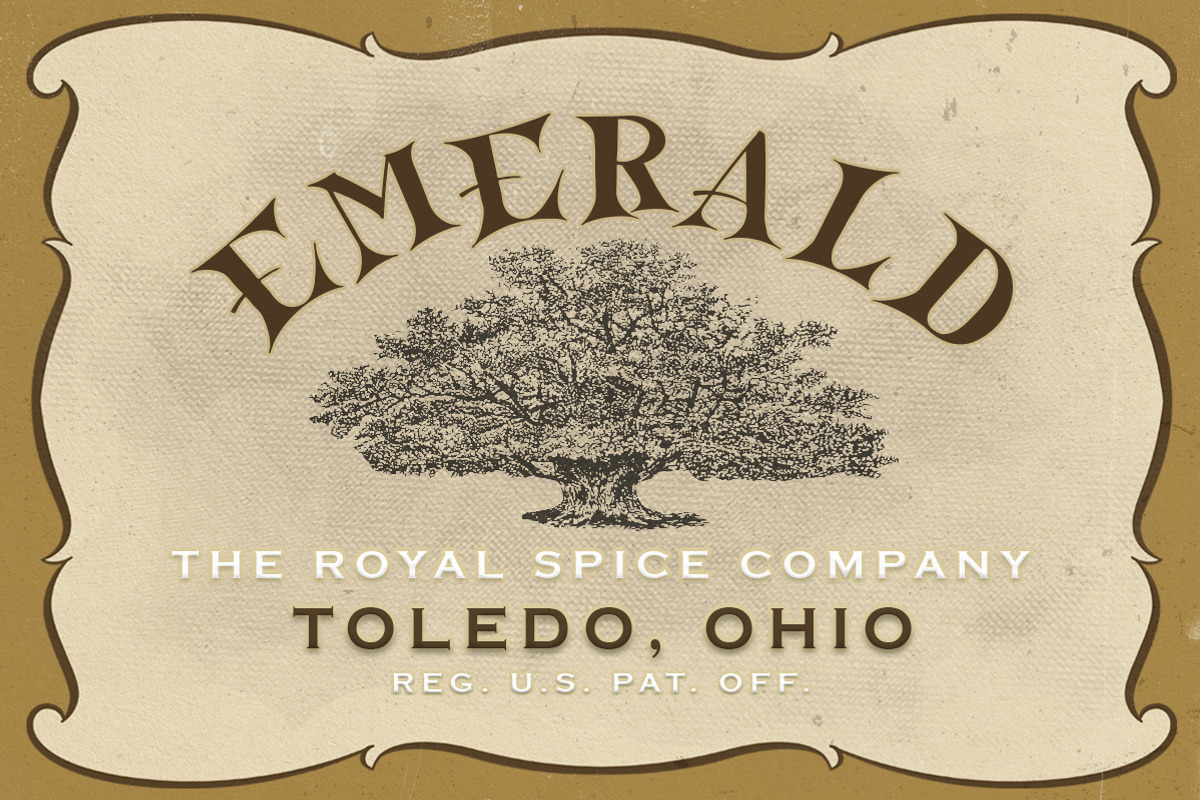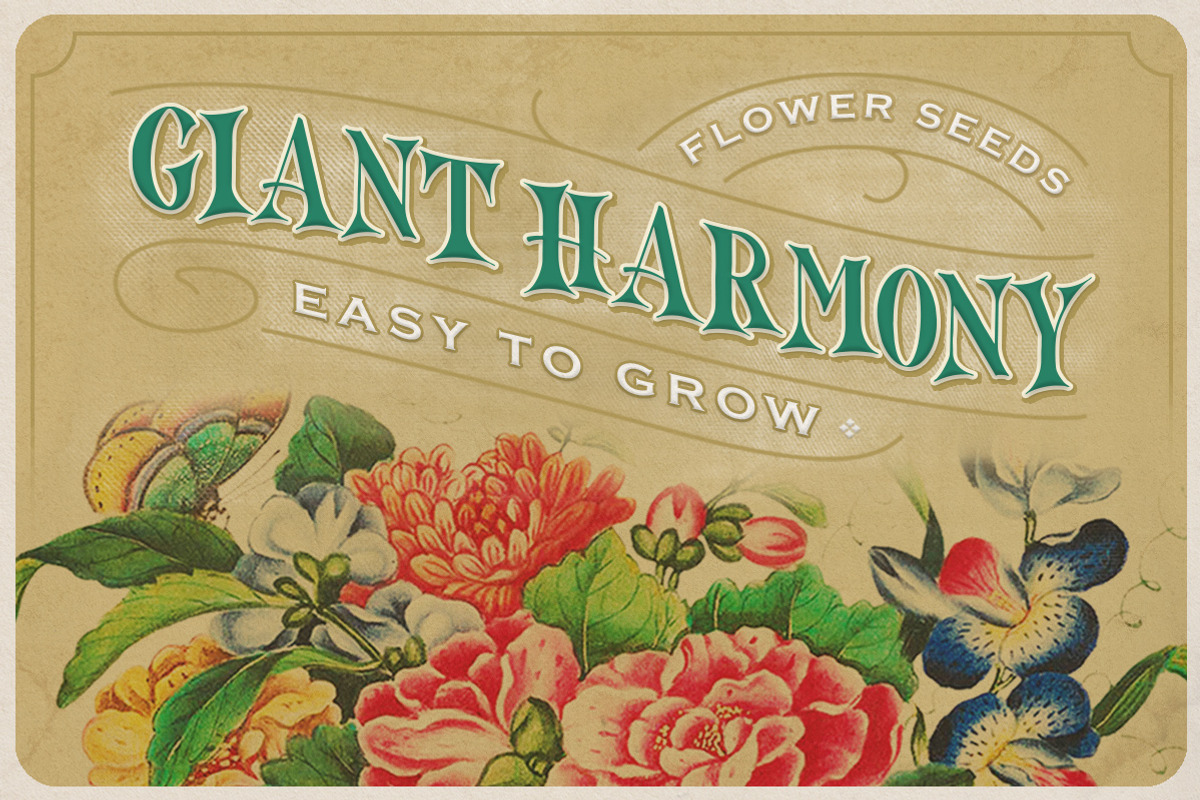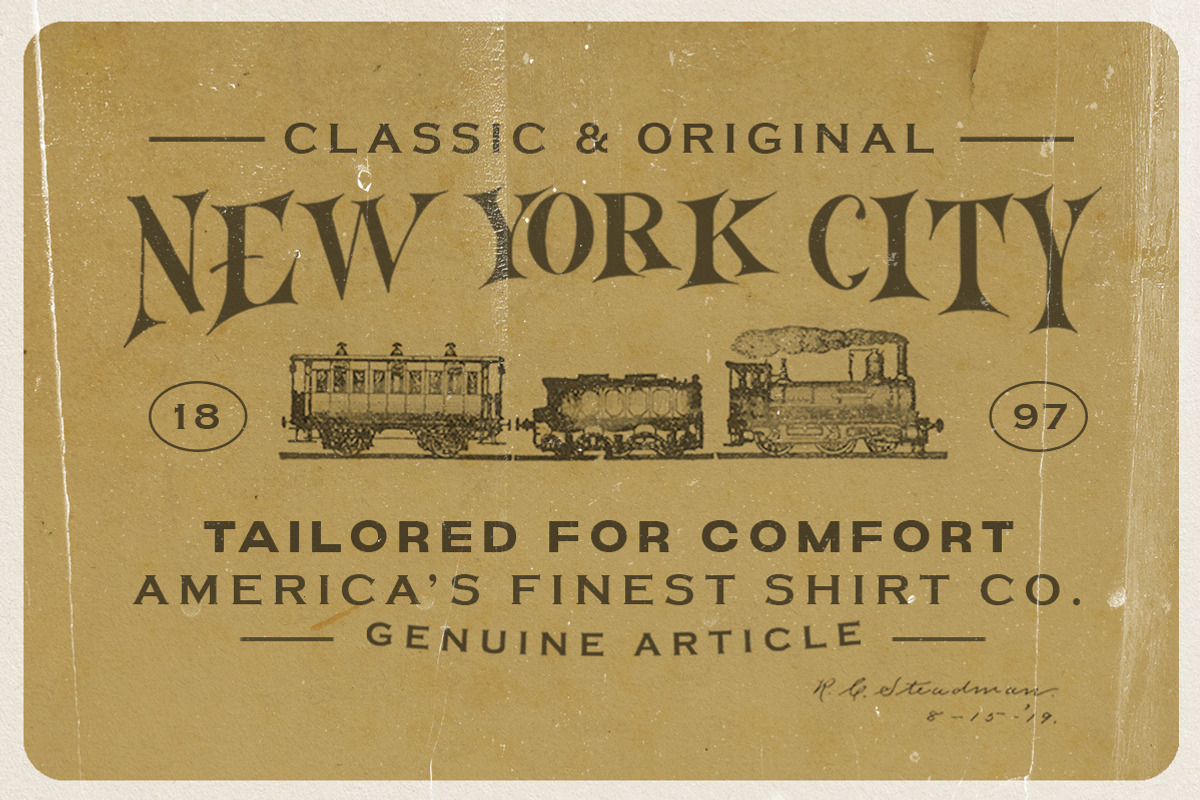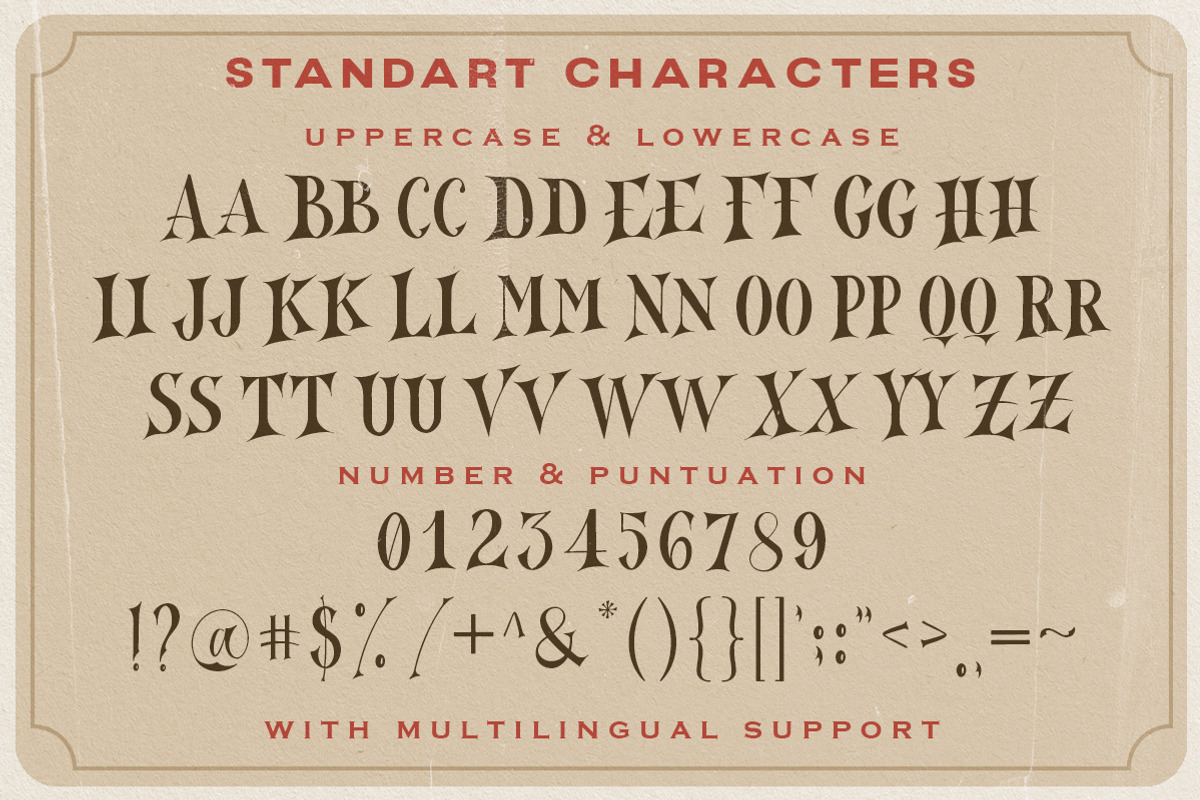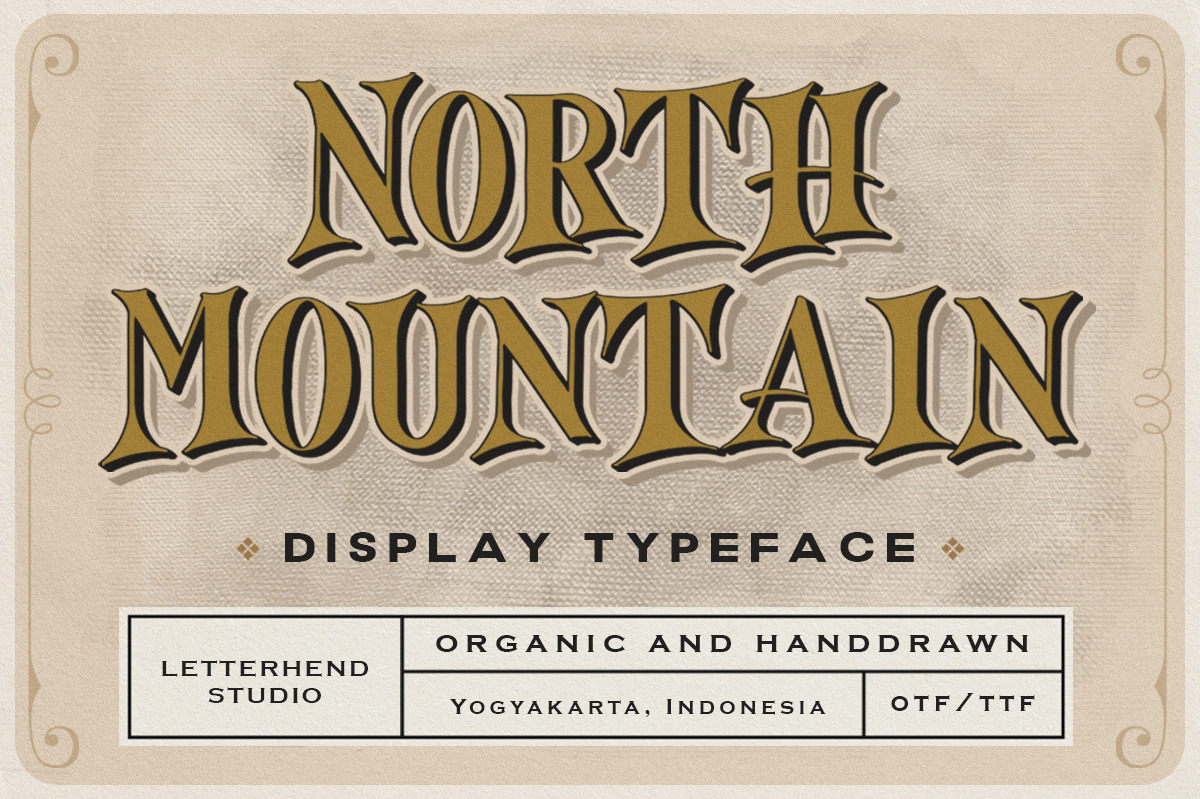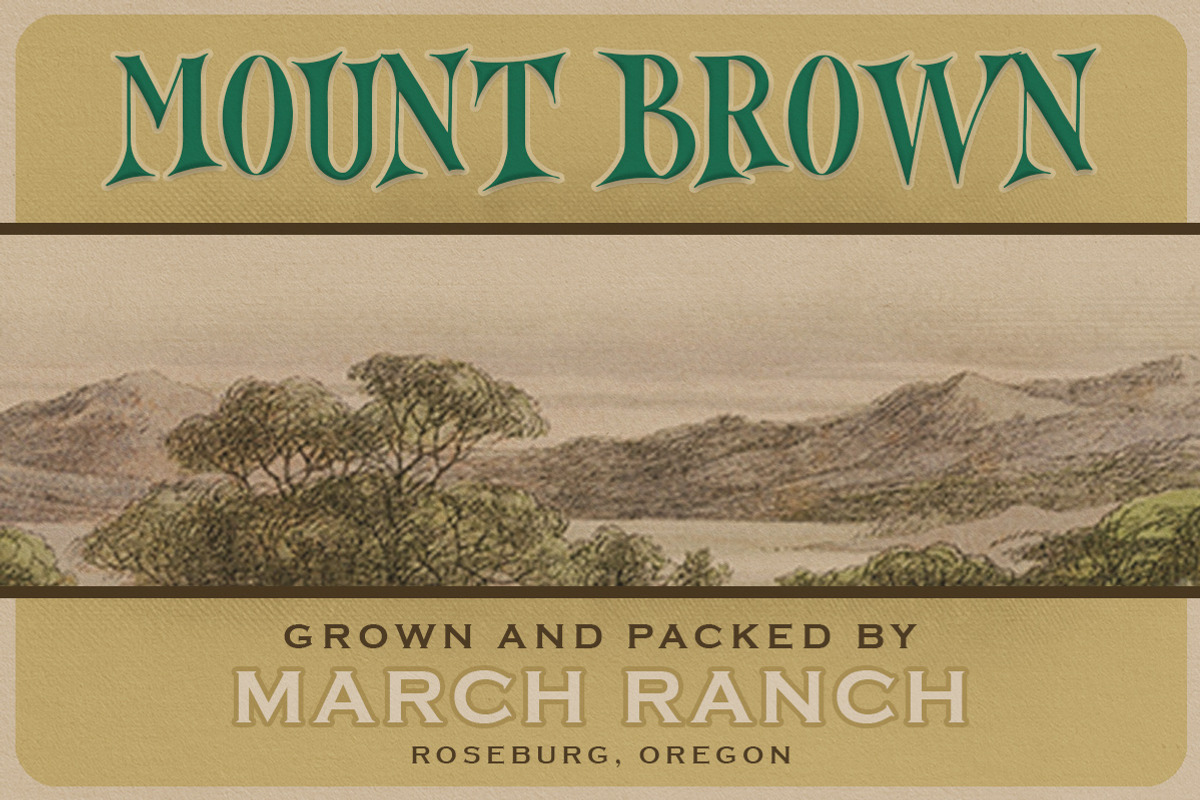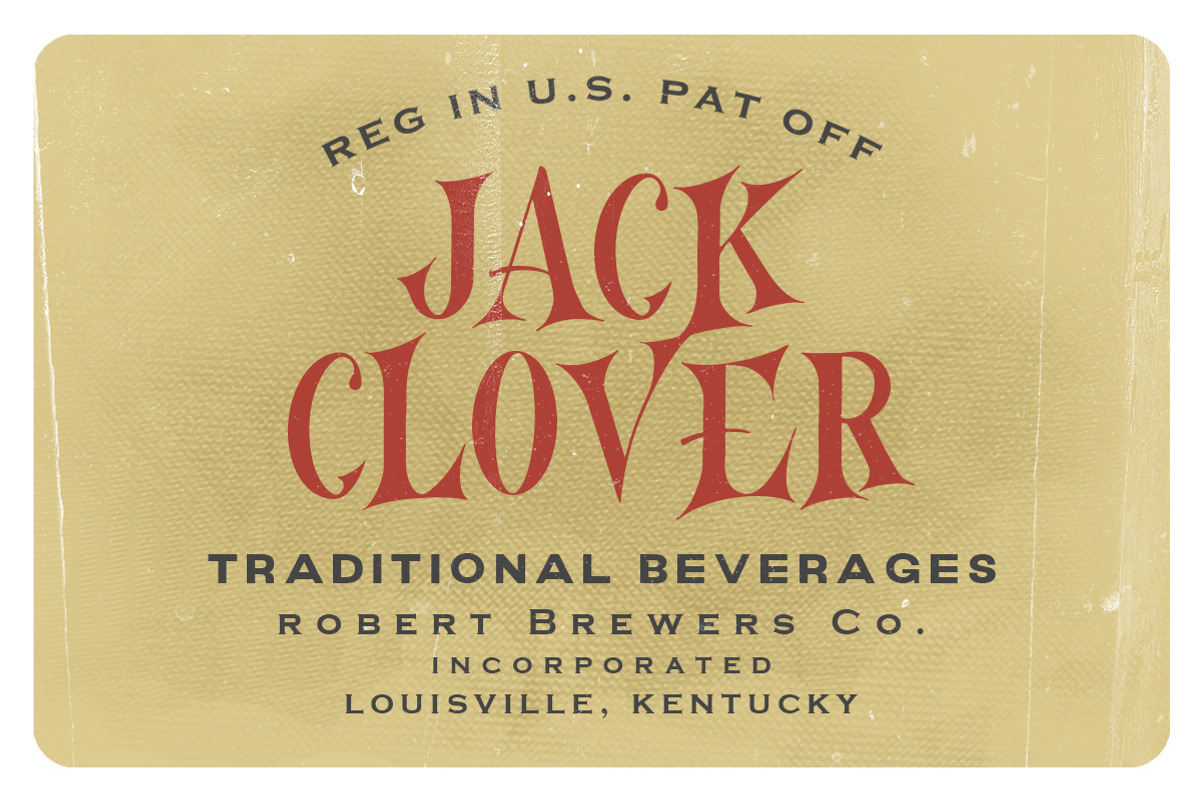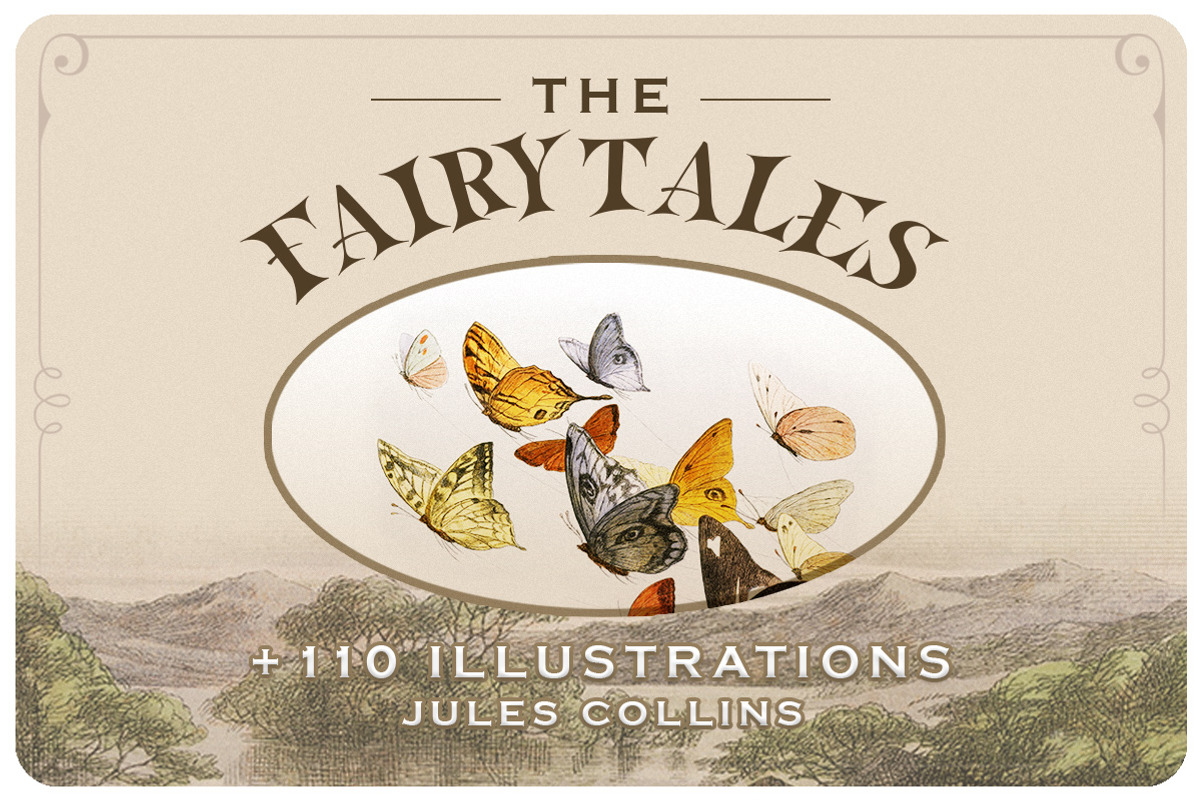
North Mountain - Display Typeface
Introducing, North Mountain - A nostalgic display typeface. The sharp edges make this font looks great and standout for tittle, headline, logo, etc. There are three styles, regular, edge, stamp. Perfectly to be applied to the other various formal forms such as invitations, labels, logos, magazines, books, greeting / wedding cards, packaging, fashion, make up, stationery, novels, labels or any type of advertising purpose.